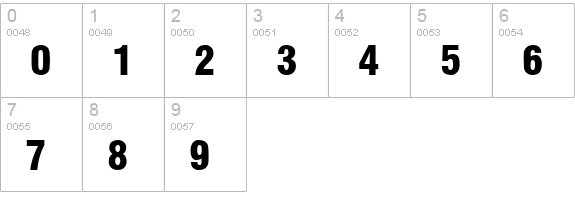
Milford Black is a maximum-weight, dramatic variant in the Milford typeface family \xE2\x80\x94 well suited to maximum-impact headlines, posters, and packaging.
Milford Black font is a bold and captivating typeface that exudes elegance and sophistication. With its clean lines and strong presence, this font is perfect for creating eye-catching headlines, logos, and branding materials. The Milford Black font is designed with meticulous attention to detail, ensuring that each letter is perfectly balanced and cohesive. Its unique combination of thick and thin strokes gives it a modern and stylish look that is sure to make a lasting impression. One of the best things about Milford Black font is that it is free. Yes, you read that right! This amazing font is freely available to download at FontsMarket.com. Whether you are a professional designer or a hobbyist, you can now access this stunning font without any cost. The versatility of Milford Black font is another reason why it has become so popular among designers. It can be used in a variety of design projects, from print materials like posters and brochures to digital platforms such as websites and social media graphics. Its bold and commanding presence ensures that your message will be heard loud and clear. So why wait? Head over to FontsMarket.com and download Milford Black font today. With its timeless appeal and free availability, you can elevate your designs to new heights and make a lasting impression on your audience. Don't miss out on this fantastic opportunity to enhance your design arsenal with a font that is both stylish and accessible.